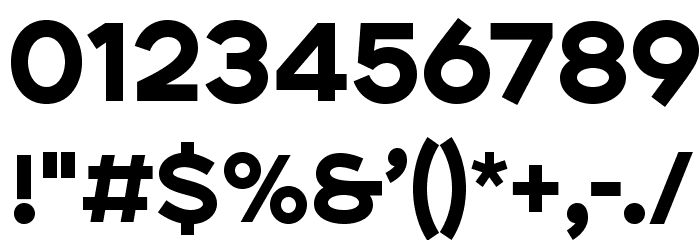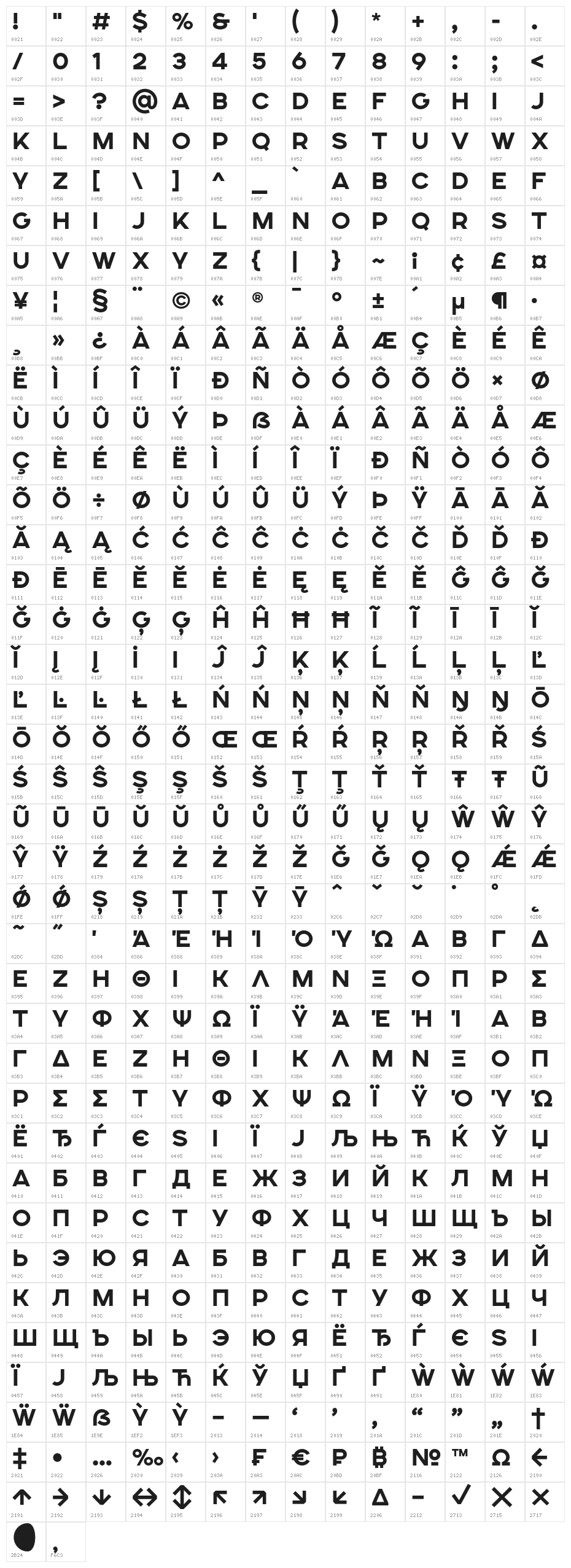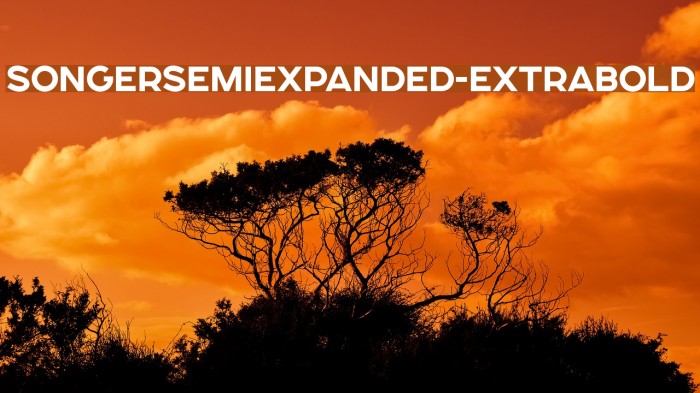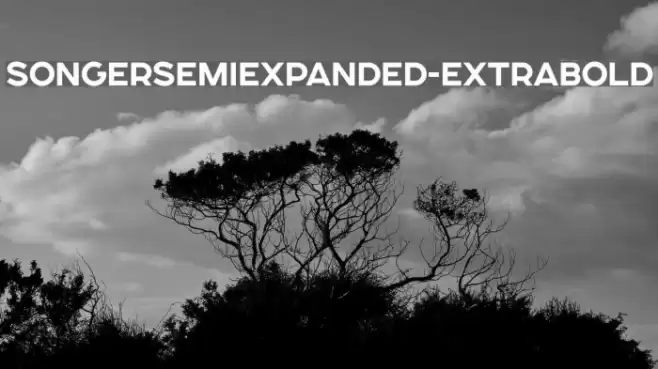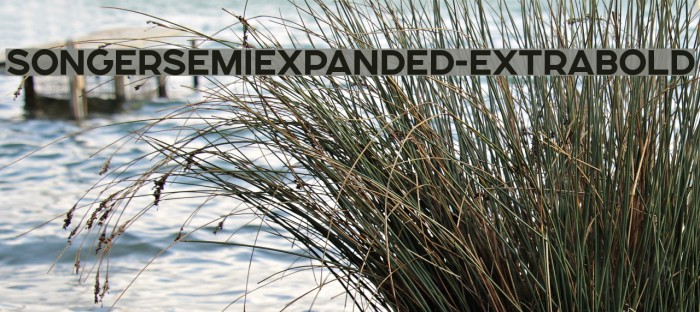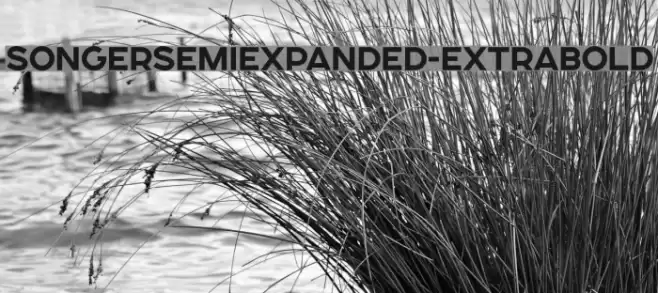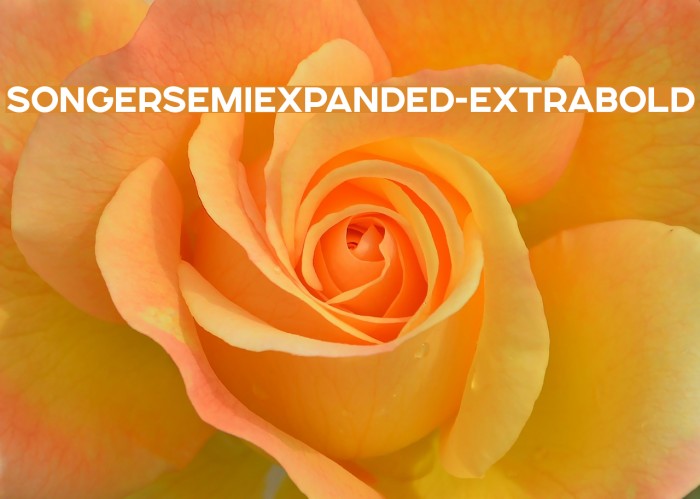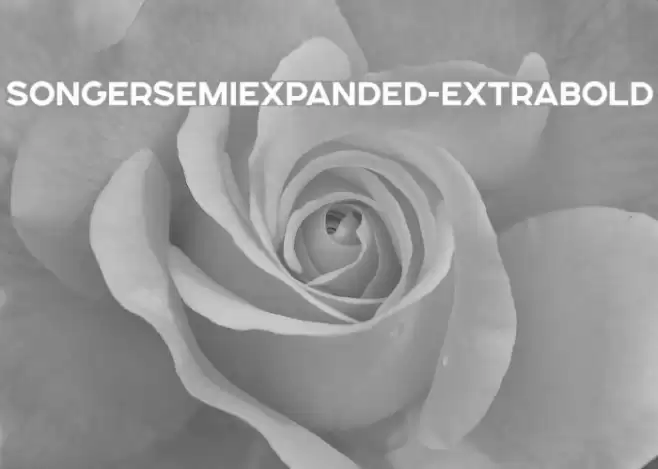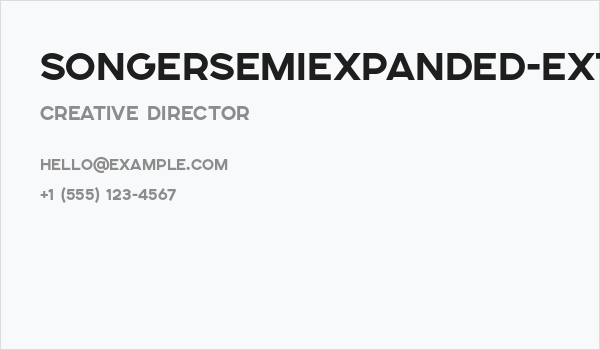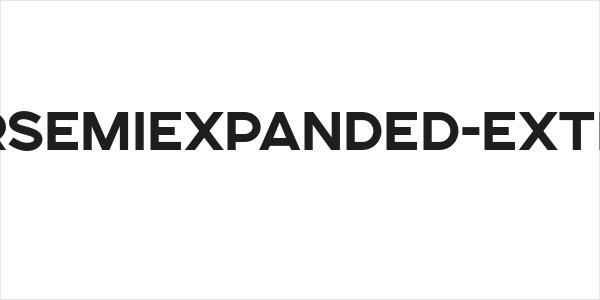
SONGERSemiExpanded-ExtraBold Font
SONGERSemiExpanded-ExtraBold Description
This typeface features a bold and commanding presence with its extra-bold weight and semi-expanded width. The characters are designed with a modern aesthetic, showcasing clean lines and a geometric structure. The uppercase and lowercase letters maintain a consistent style, providing a harmonious look across the alphabet. The numerals are equally robust, ensuring clarity and readability. Special characters are included, offering versatility for various design needs. The overall design is sleek and contemporary, making it suitable for projects that require a strong visual impact.
| Proposed Projects | Ideal for branding, headlines, posters, and advertising materials where a strong and modern typeface is needed. |